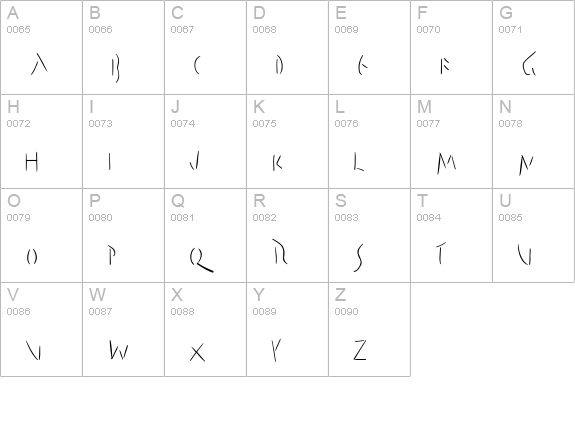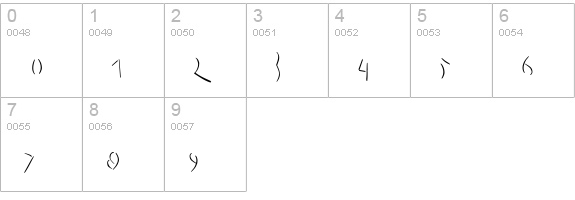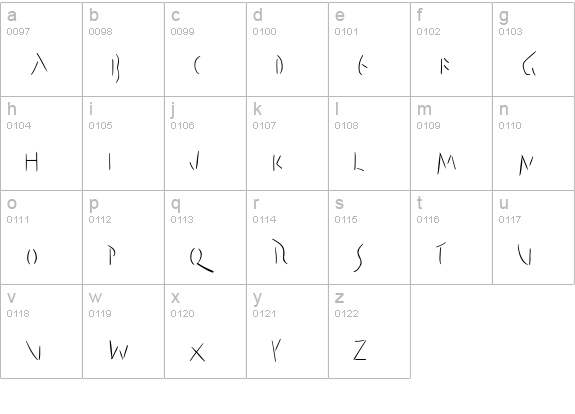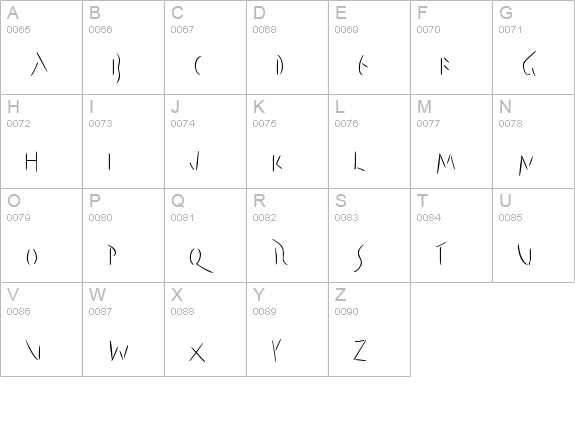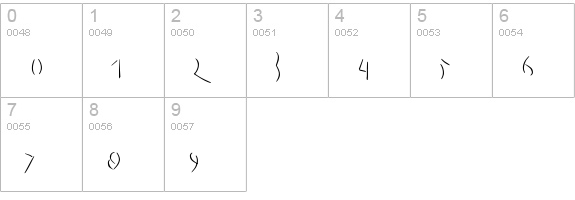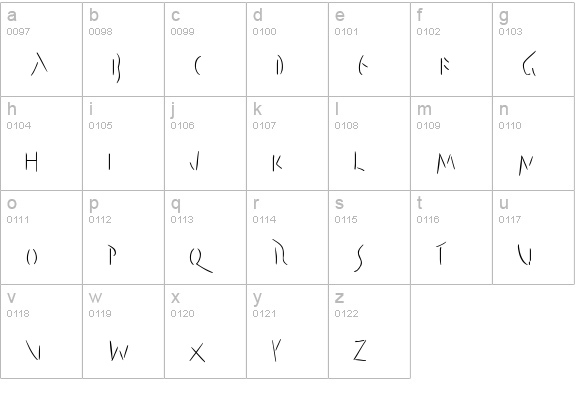
Maeggy Font Details
Introducing Maeggy font, a stylish and versatile typeface that combines modern elegance with timeless charm. Whether you're designing a logo, creating invitations, or working on a branding project, Maeggy font is sure to make a lasting impression. With its sleek lines and classic proportions, Maeggy font exudes sophistication and class. The clean and legible design makes it perfect for a wide range of applications, from print materials to digital projects. Best of all, Maeggy font is available for free download at FontsMarket.com. This means you can easily access this high-quality font and use it in your projects without any hassle. Don't miss out on the opportunity to add Maeggy font to your collection today and elevate your designs with its timeless appeal.